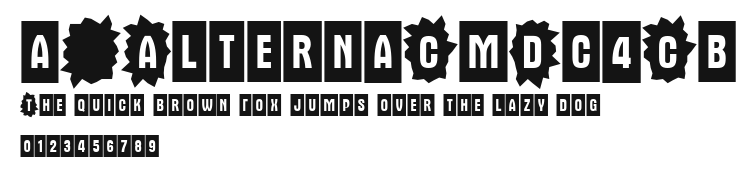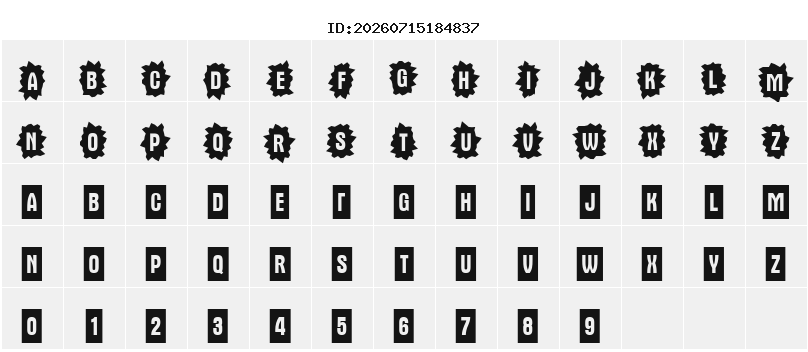
• Font Name: a_AlternaCmDc4Cb
• Font Style: Demi
• Full Font Name: a_AlternaCmDc4Cb
About a_AlternaCmDc4Cb.ttf
a_AlternaCmDc4Cb.ttf is a modern, elegant sans-serif font designed for ultimate readability and visual harmony. Perfect for branding, headlines, web design, and print materials.